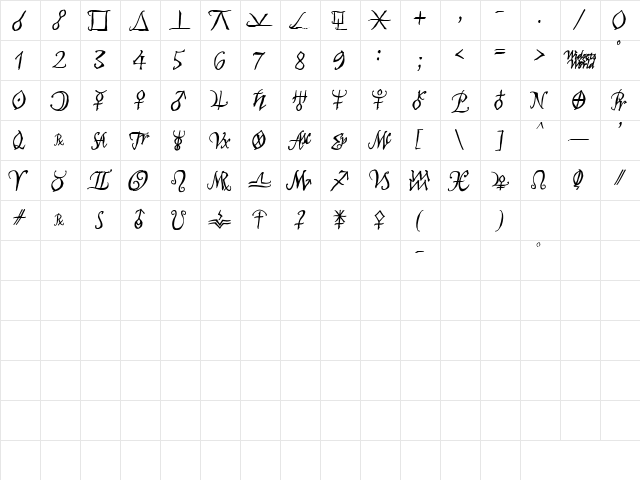
AstroScript Bold
Design Context for AstroScript Typeface
AstroScript flows with the natural rhythm of handwritten lettering, making it ideal for designs that call for warmth and personal expression. The heavy weight commands attention and anchors typographic hierarchies.
Font Pairing: Combine AstroScript with a simple geometric sans for maximum contrast — the tension between flowing curves and clean structure is a classic typographic pairing.
Pro Tip: Pair AstroScript with a clean sans-serif for supporting text. The contrast between fluid script and geometric structure creates an elegant typographic hierarchy.